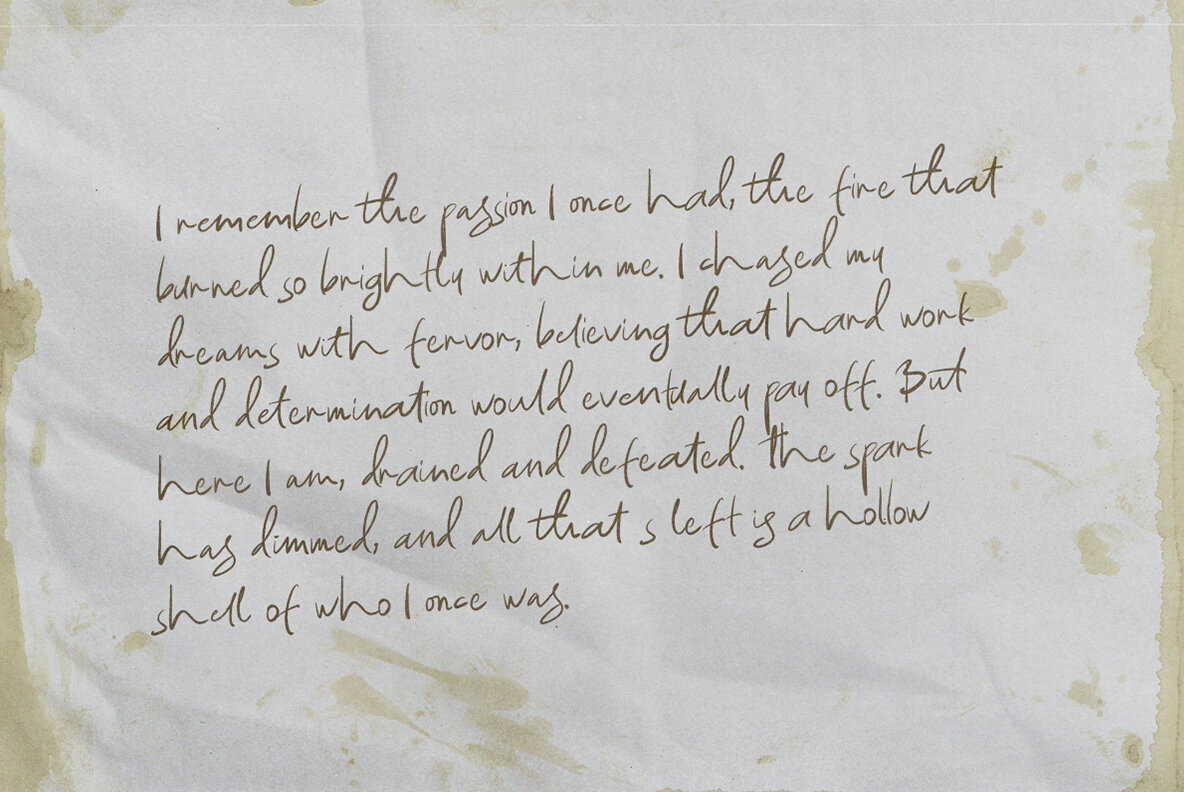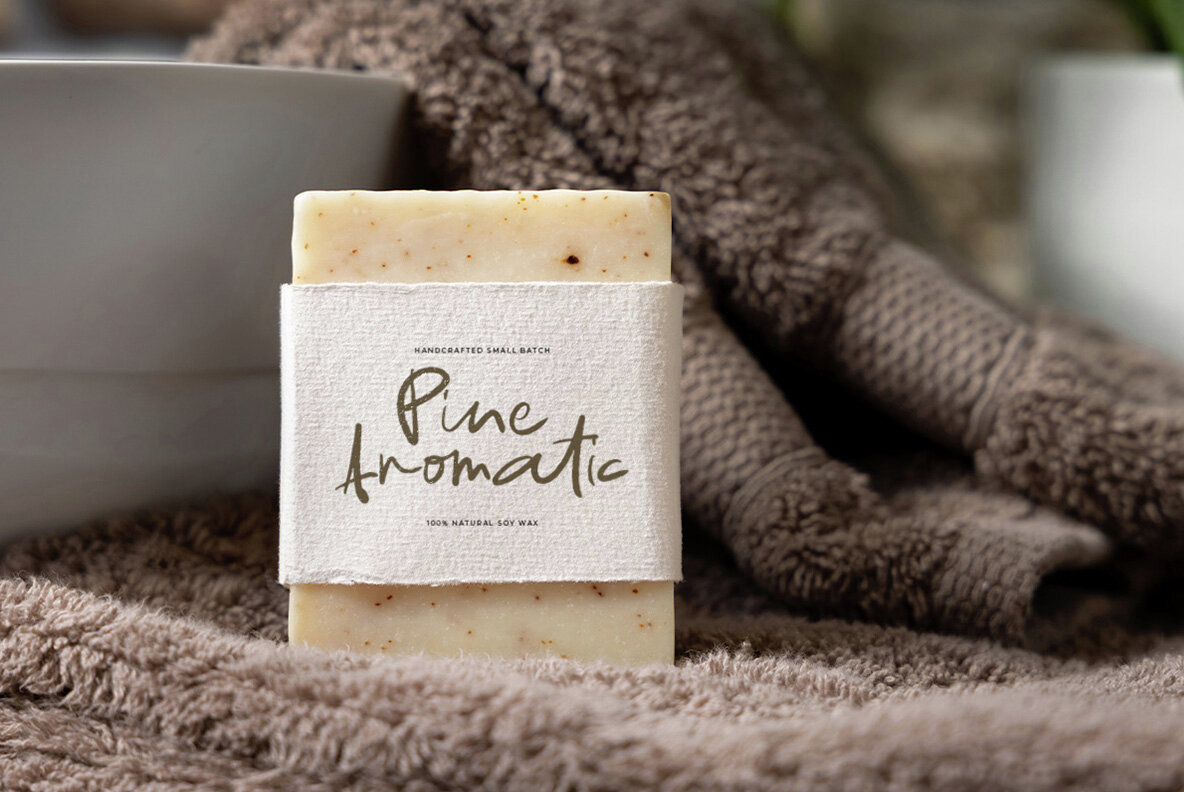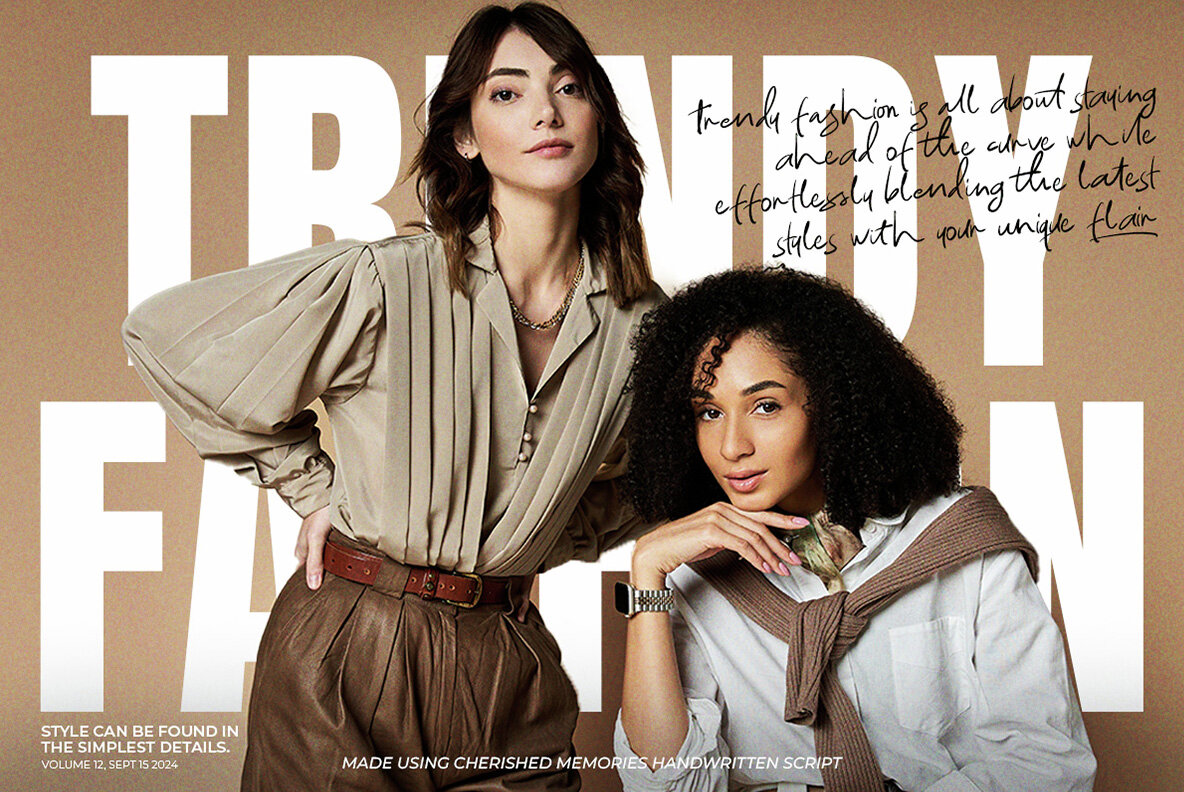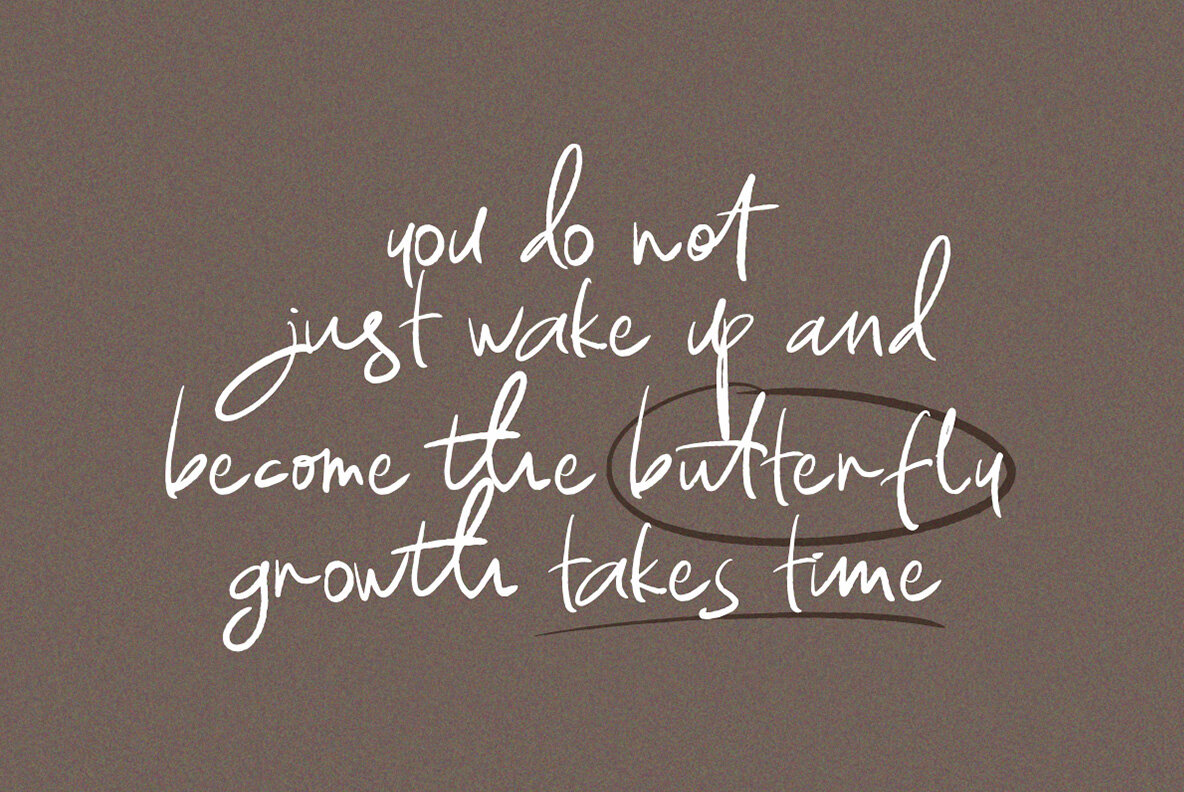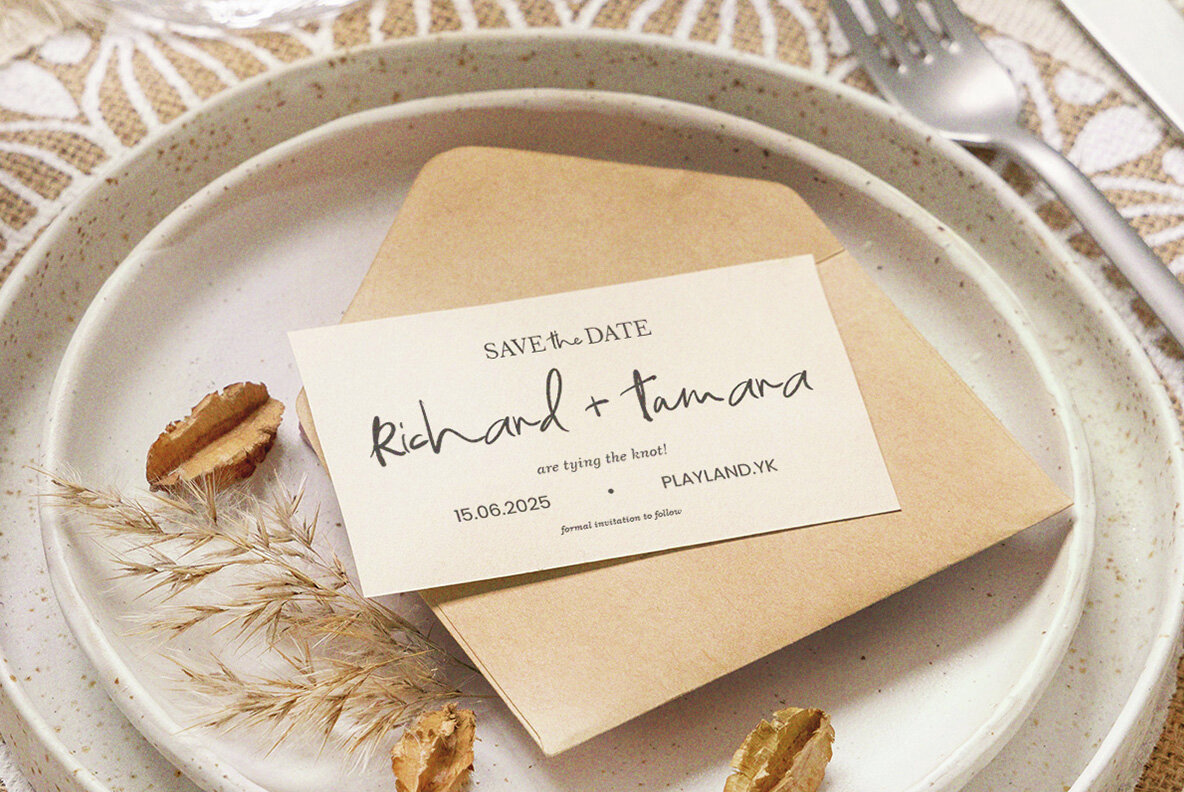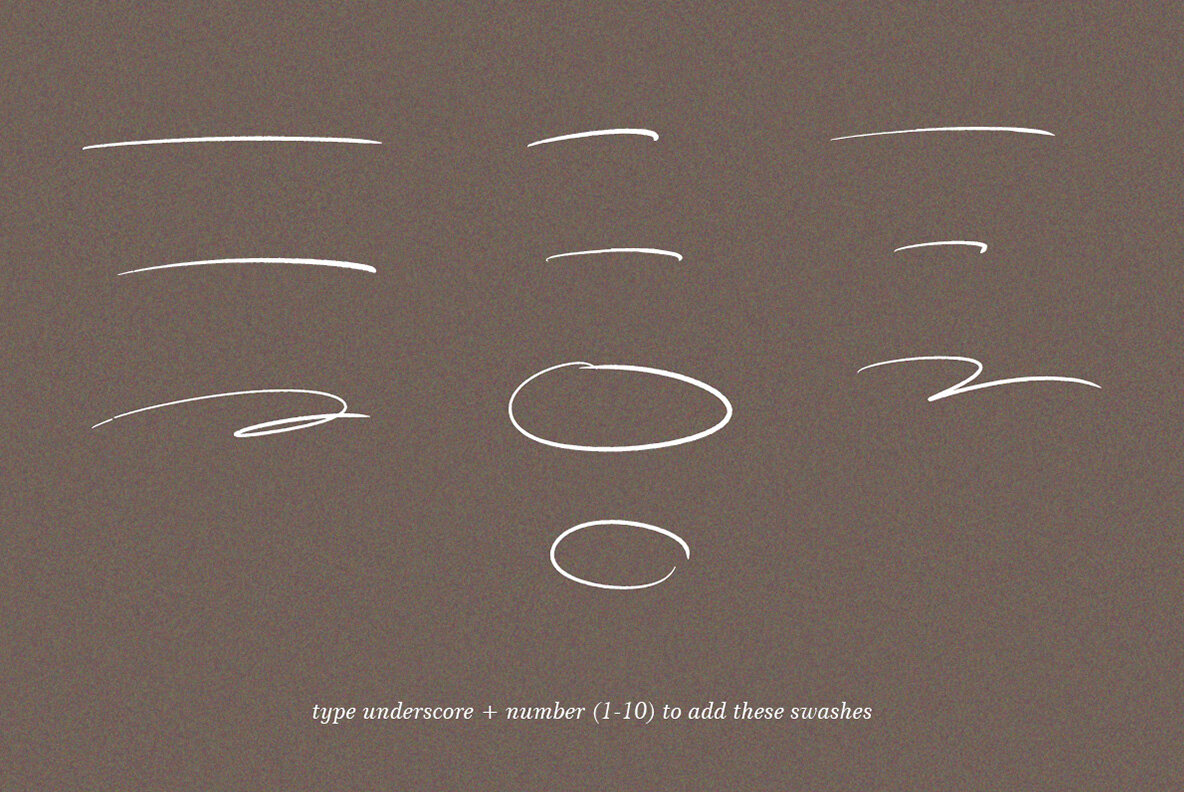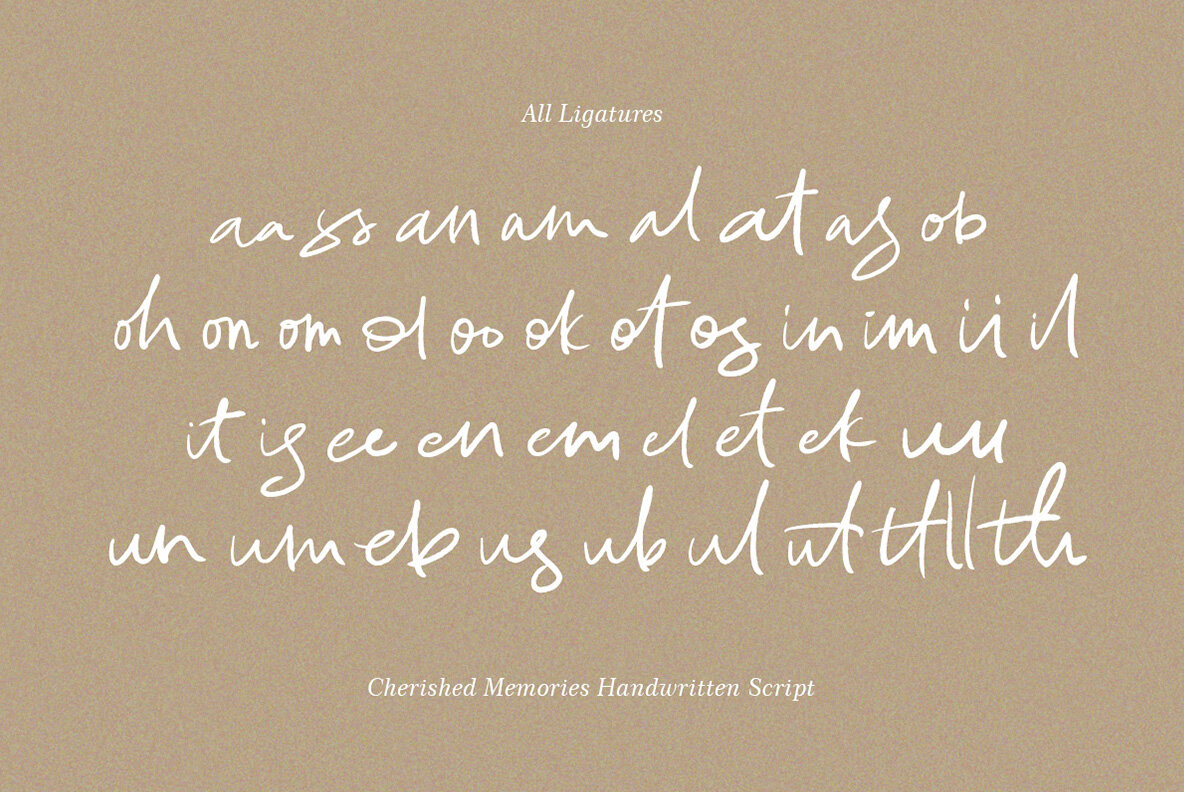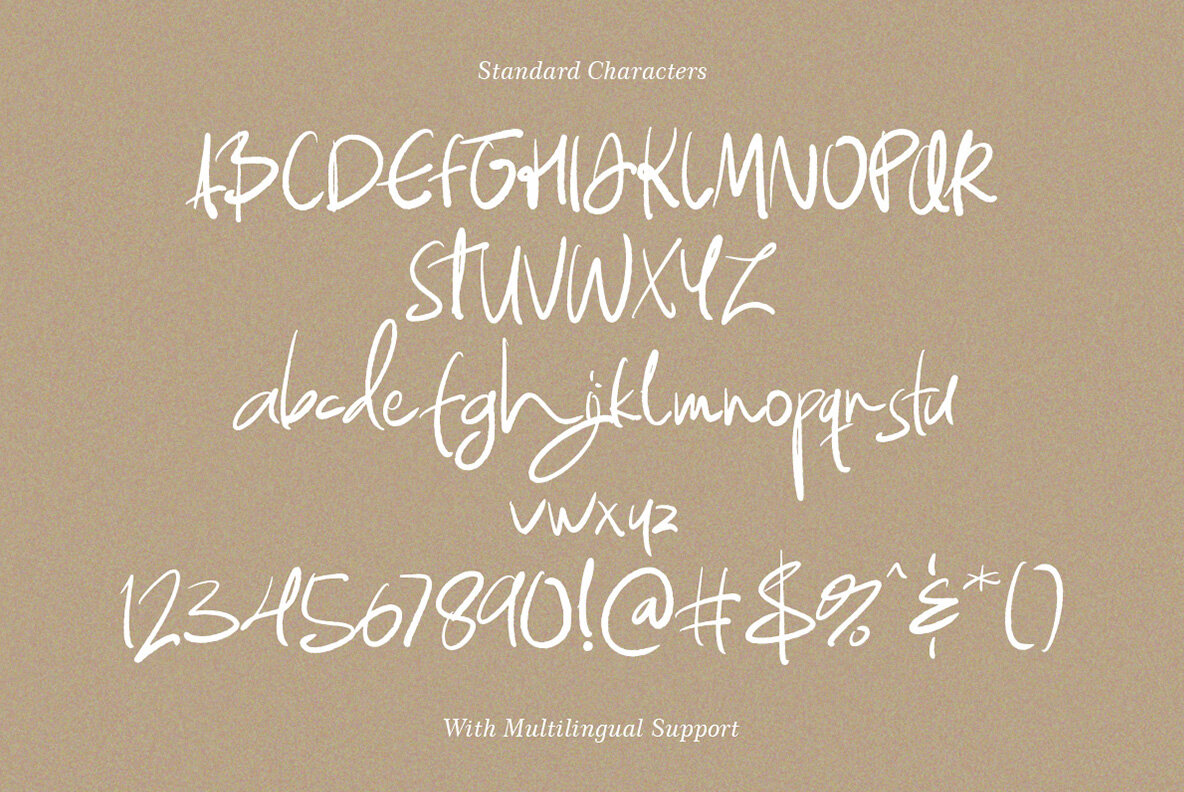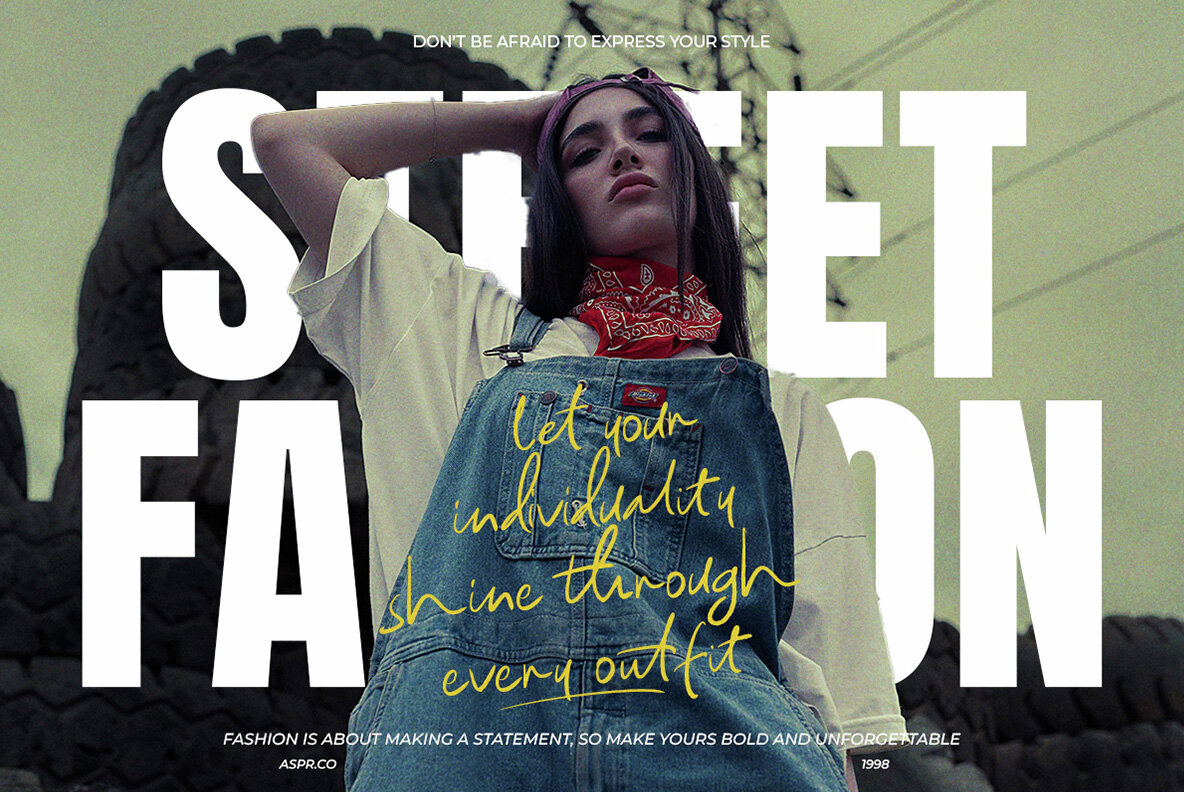
Cherished Memories Font
Cherished Memories Regular
Cherished Memories is a beautifully hand-drawn font that brings a sense of freestyle sophistication to your design projects. With its elegant curves and chic styling, this font is ideal for enhancing a wide range of formal applications, including logos, invitations, magazines, greeting cards, and packaging. Its versatility makes it an excellent choice for any design looking to capture a touch of elegance and style.
This font offers a comprehensive set of features that cater to your design needs. It includes uppercase and lowercase letters, numbers, punctuation, as well as a variety of alternates and ligatures for creative customization. Multilingual support is also included, allowing global reach for diverse audiences. Cherished Memories is PUA encoded, ensuring easy access to all glyphs and characters.